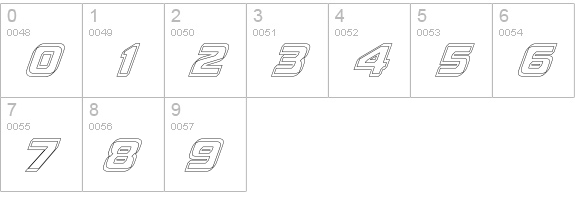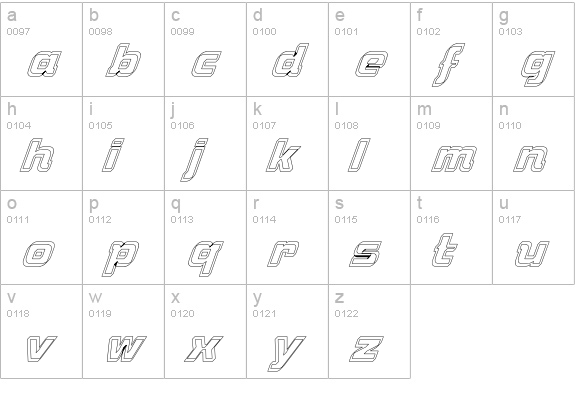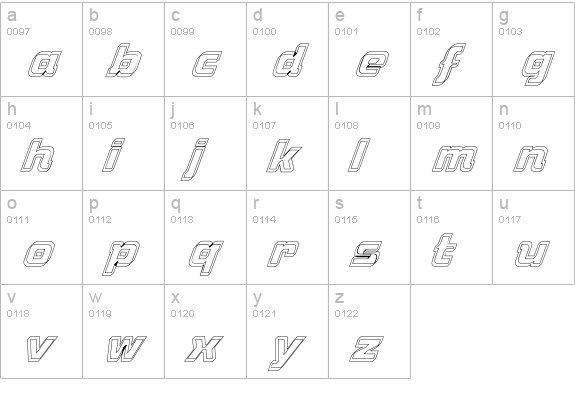
Introducing SuperMother-cool font - a sleek and modern typeface designed to make your projects stand out with a touch of sophistication. This versatile font exudes a sense of coolness and style, making it perfect for a wide range of design applications. Whether you're creating a trendy logo, eye-catching poster, or stylish social media graphics, SuperMother-cool font is sure to make a statement. And the best part? SuperMother-cool font is available for free download at FontsMarket.com! That's right, you can easily access this amazing font without breaking the bank. So why wait? Elevate your designs with SuperMother-cool font today and watch as your creativity takes flight.